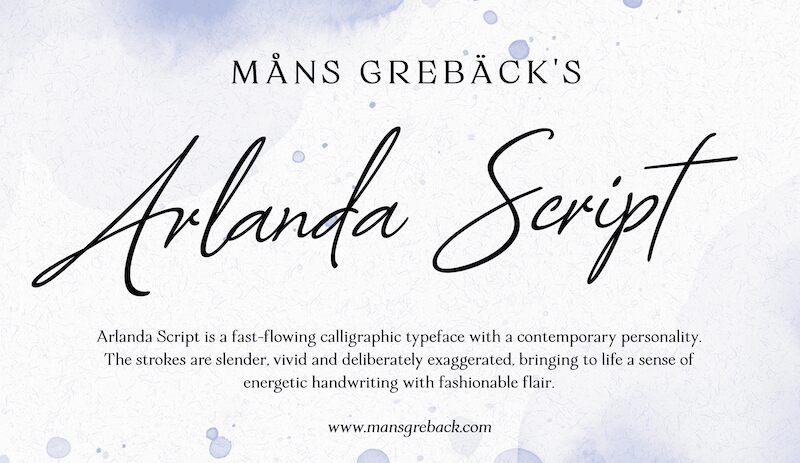
Arlanda Script Swash PERSONAL Regular
Arlanda Script Swash font by Måns Grebäck is a free elegant handwritten font with fast-flowing characters and a modern style. It's a light signature typeface that instantly impresses with its sophisticated grace, vivid presence, and contemporary vibe. Thin strokes decorate the cursive letters within this 2022 design for visually interesting and elaborate display typography.
Use an underscore (_) to create a swash underline.
Example: Rosen_lover
Utilize multiple underscores to achieve different swashes.
Example: Wonder____woman